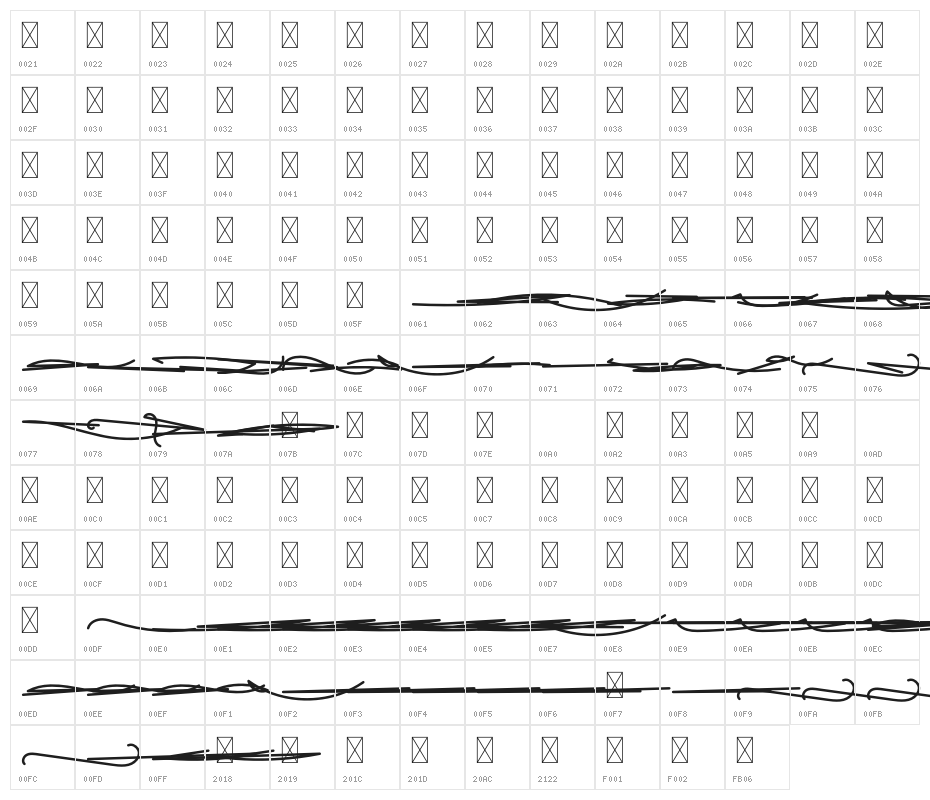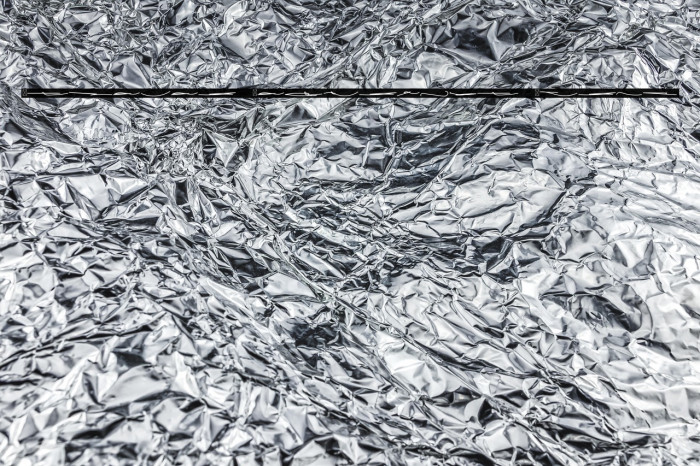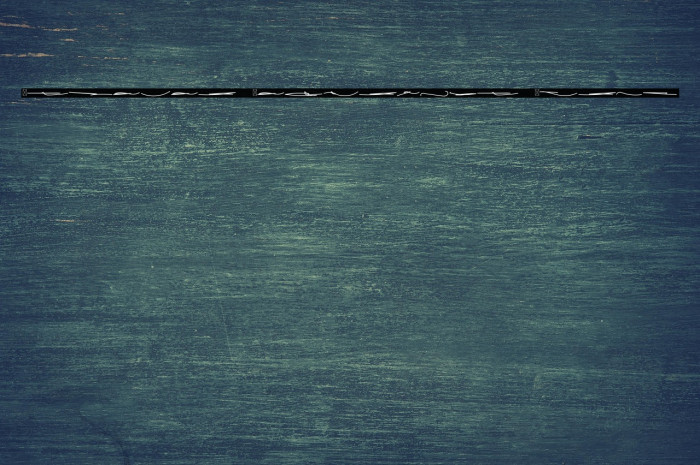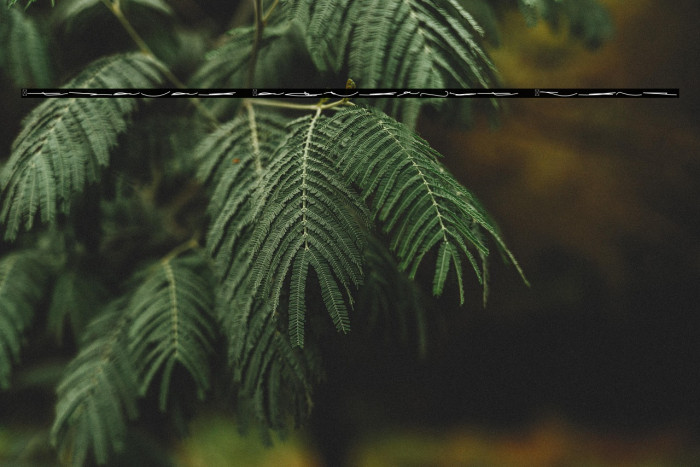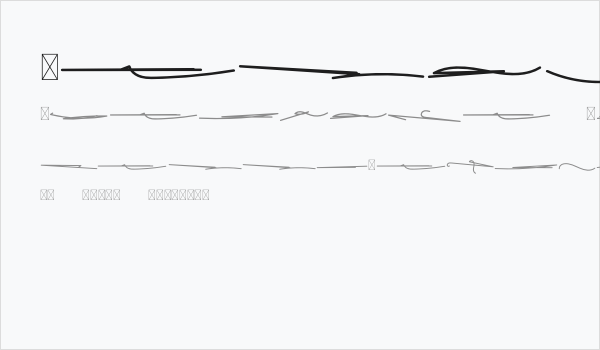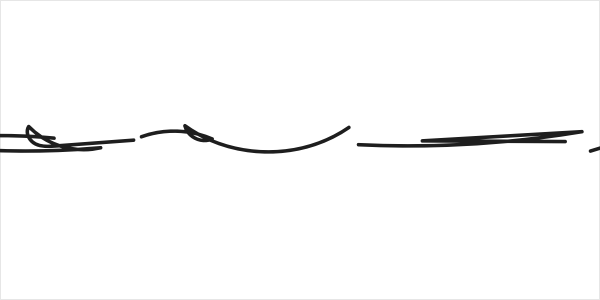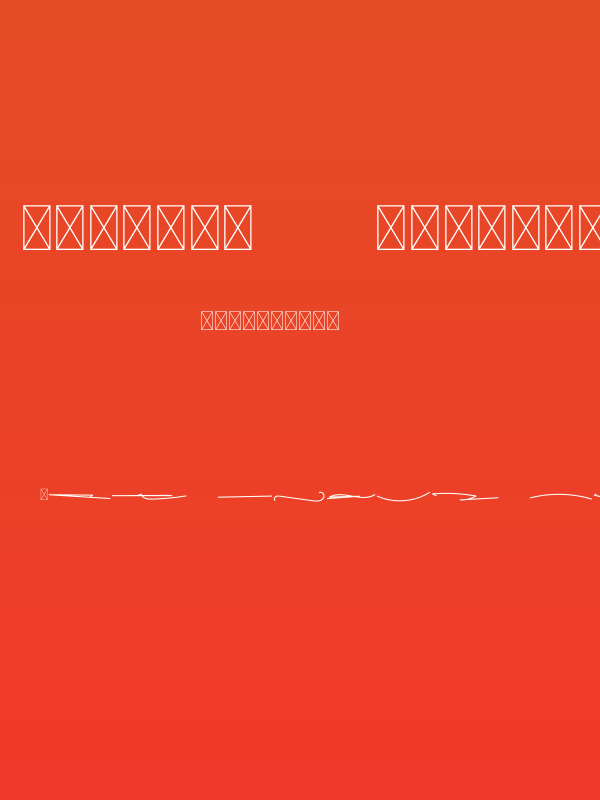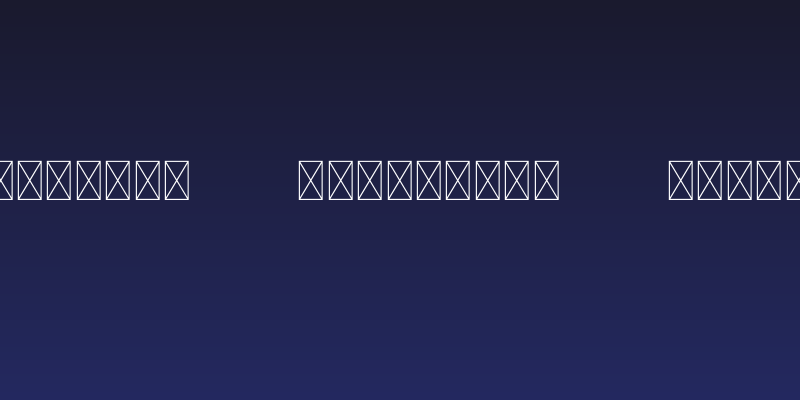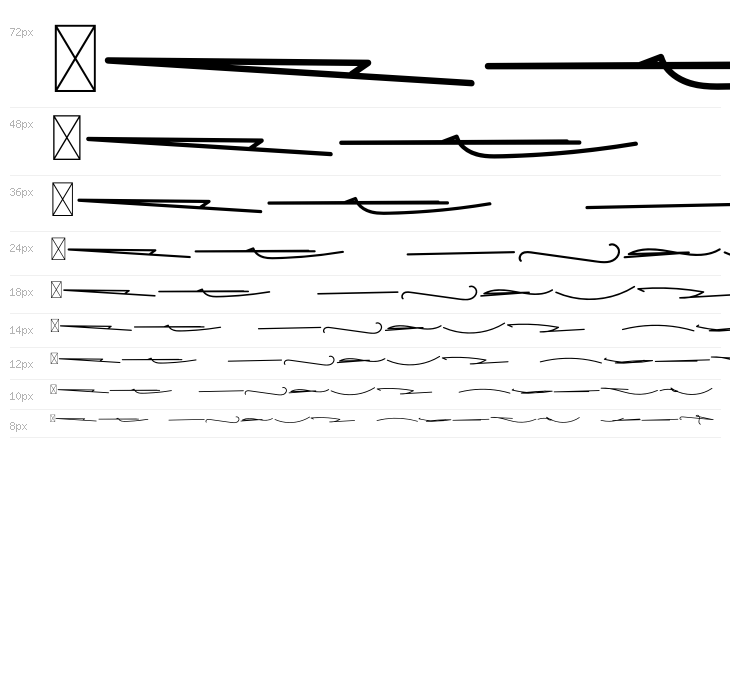
Felicia Signature Swash Font
Felicia Signature Swash Description
This font features a flowing, elegant script style with long, sweeping swashes that give it a sophisticated and artistic appearance. The characters are connected in a fluid manner, creating a sense of continuity and grace. The strokes are varied in thickness, adding a dynamic and lively feel to the text. This font is perfect for projects that require a personal touch or a sense of luxury and refinement. The overall design is both modern and timeless, making it versatile for various applications.
| Overall Style | Elegant, Artistic |
| Proposed Projects | Ideal for wedding invitations, branding, logos, and elegant stationery. |